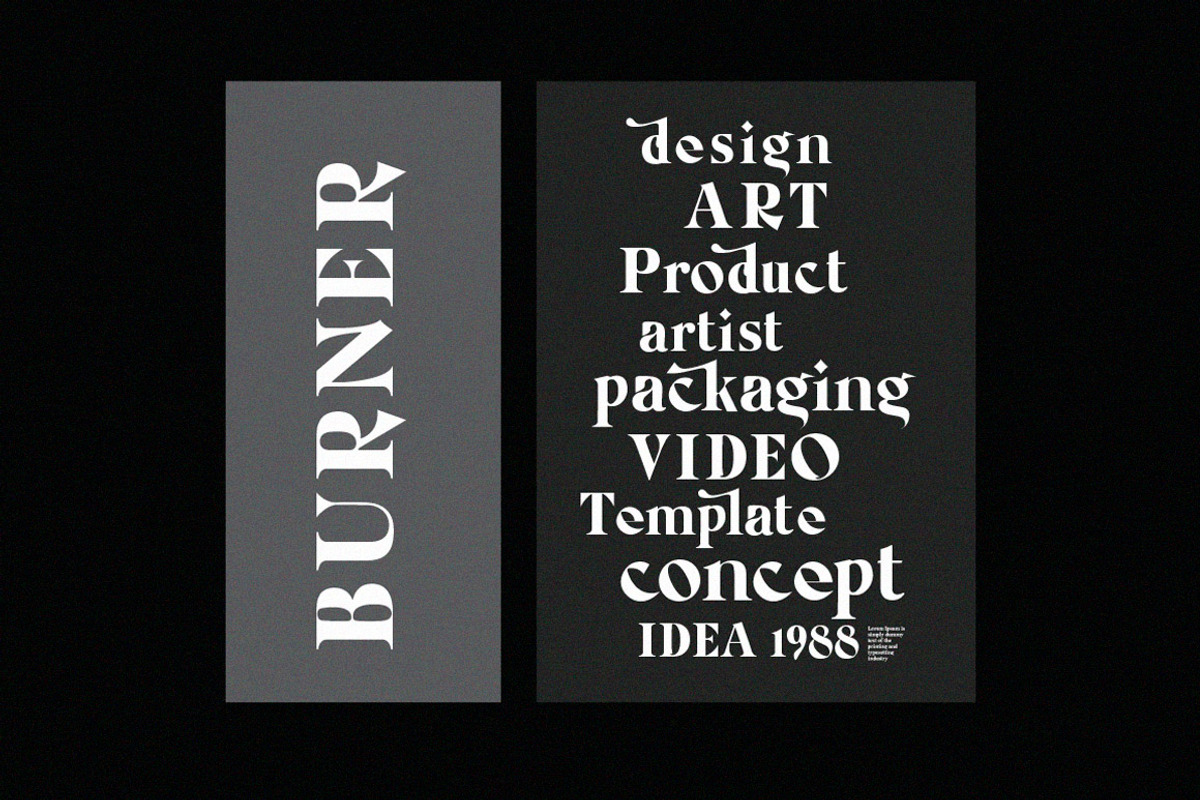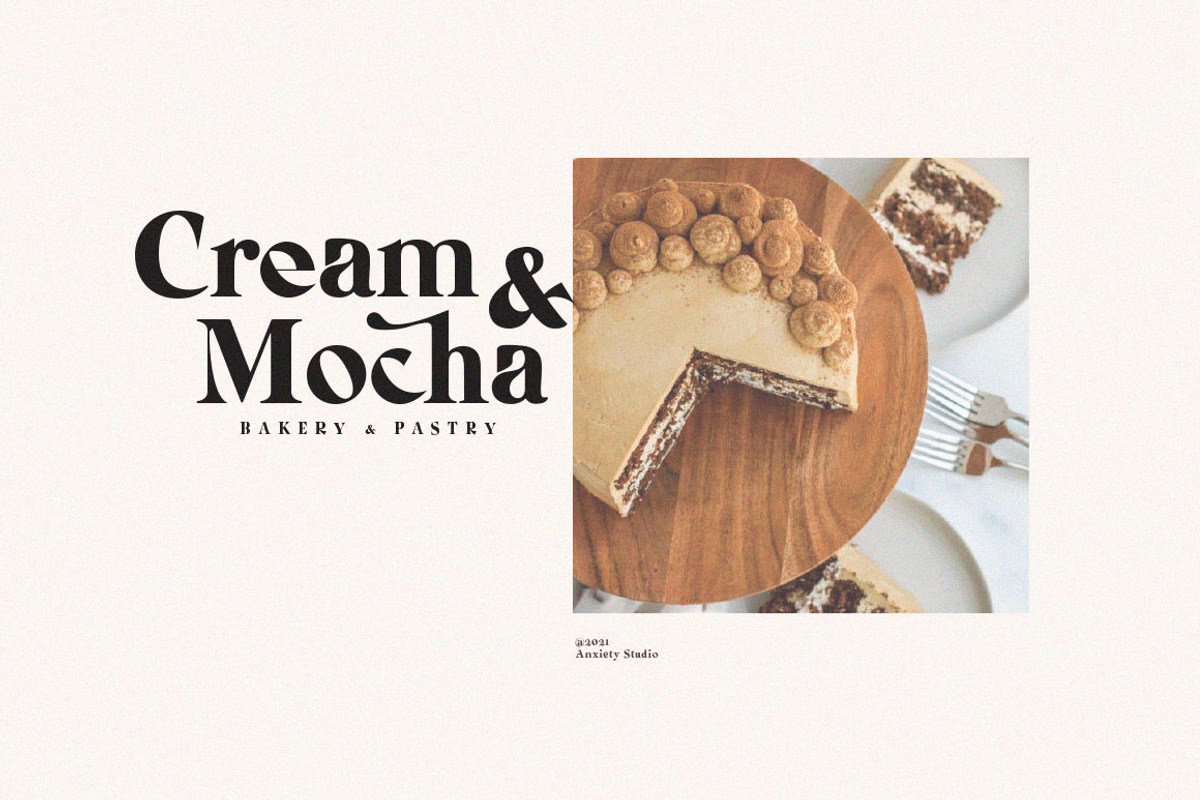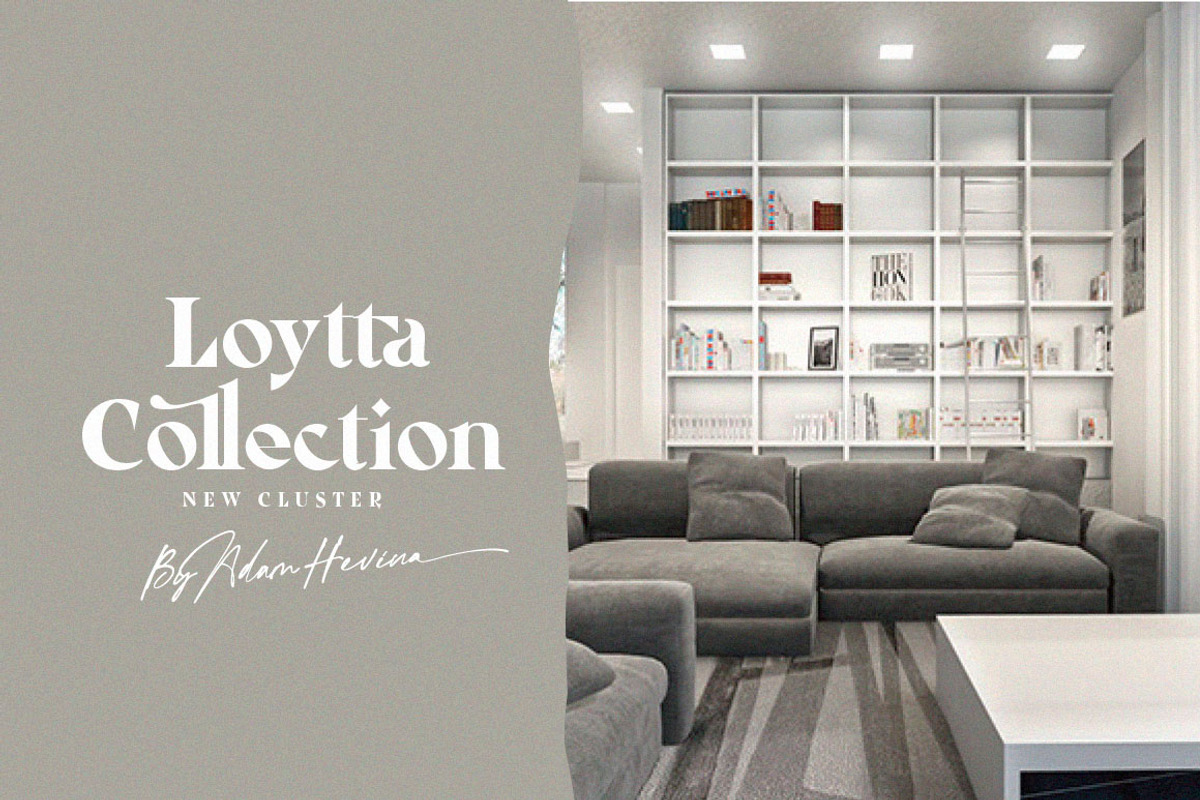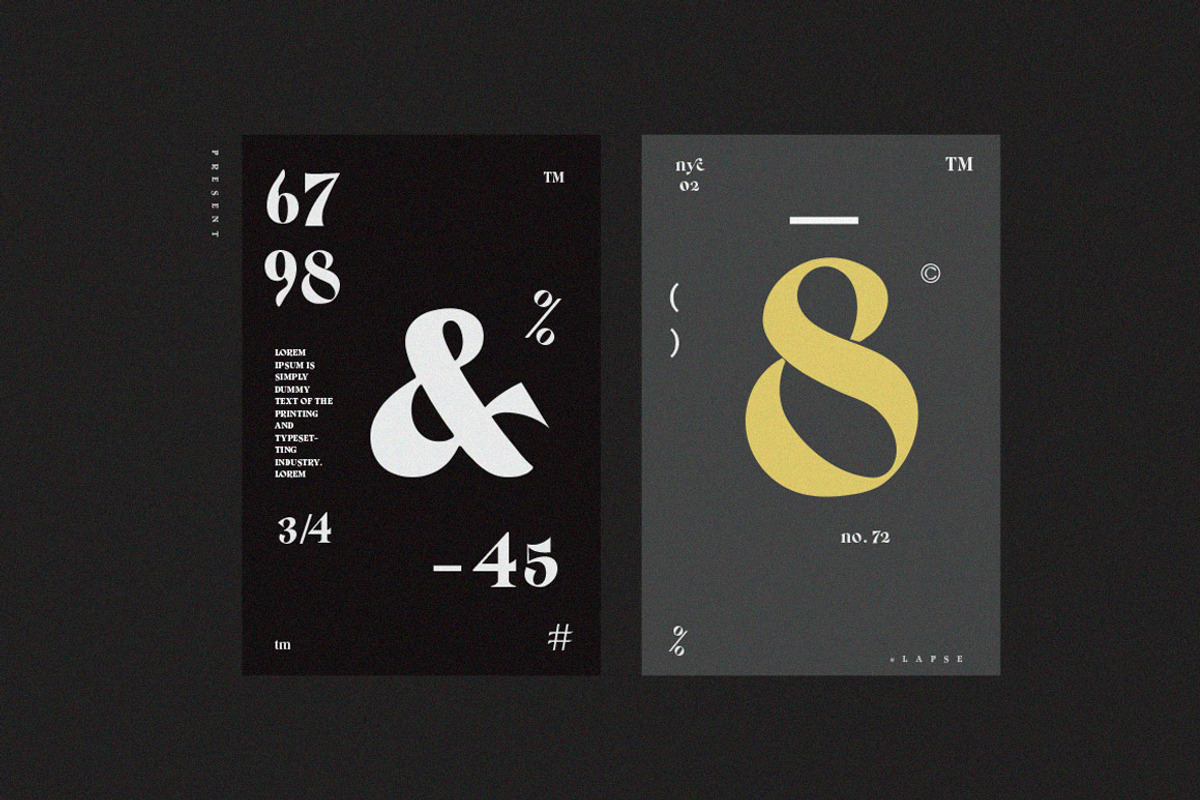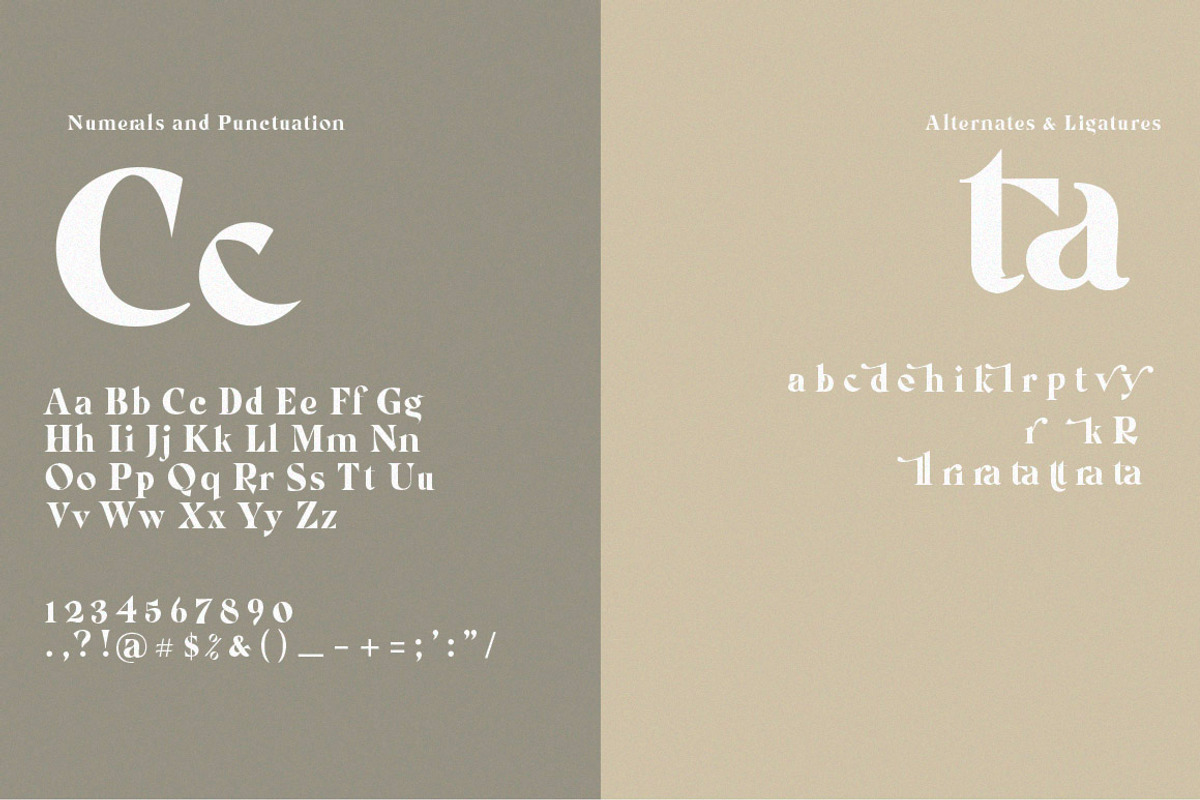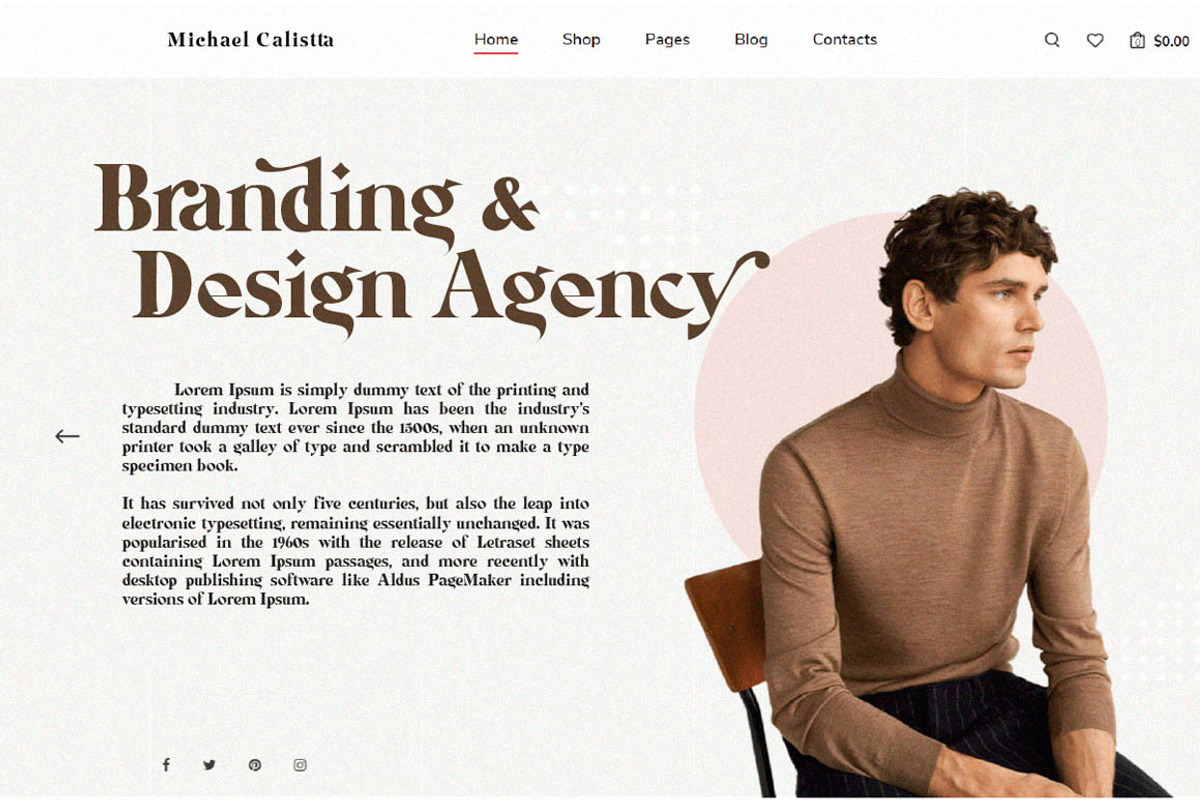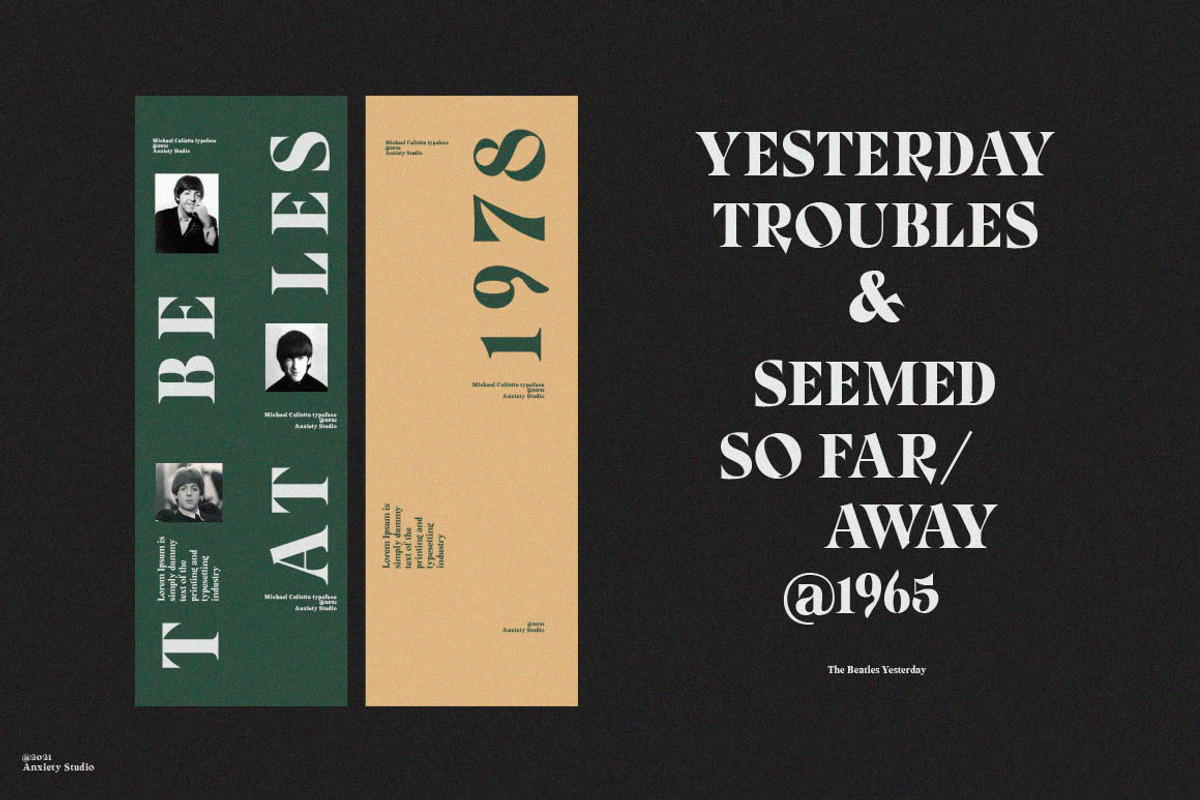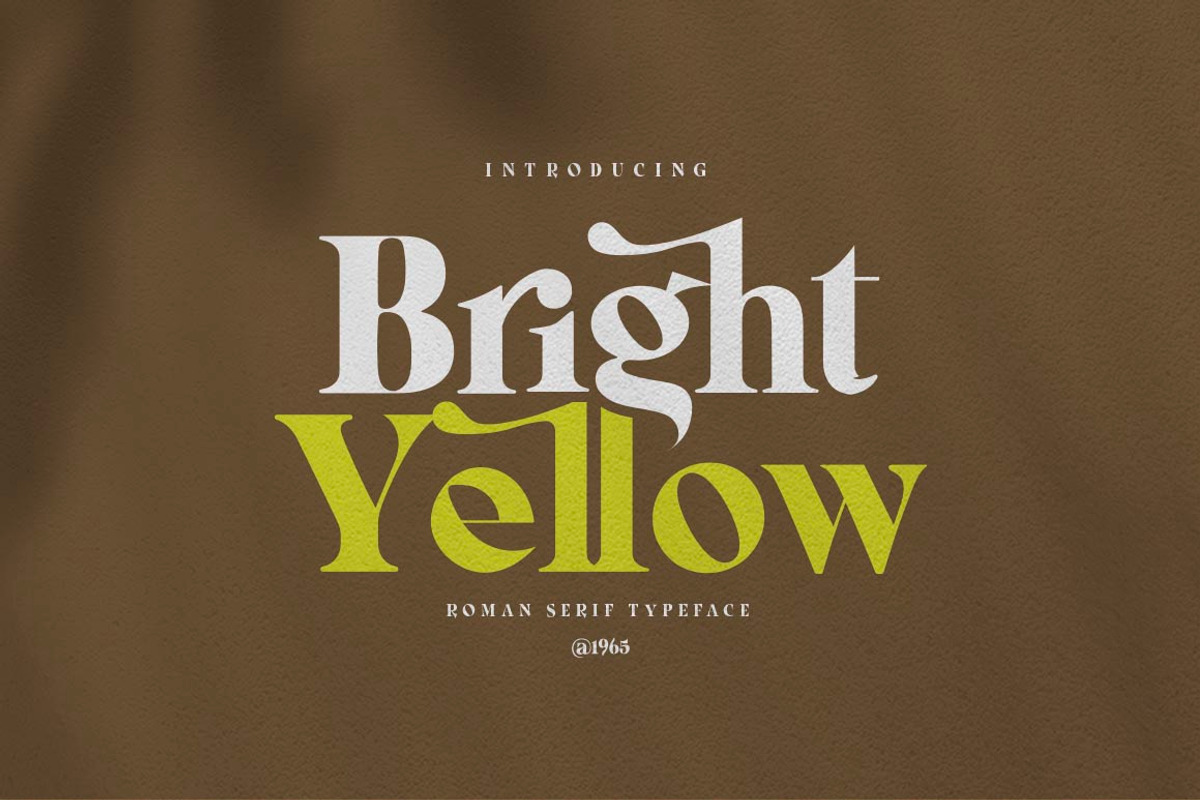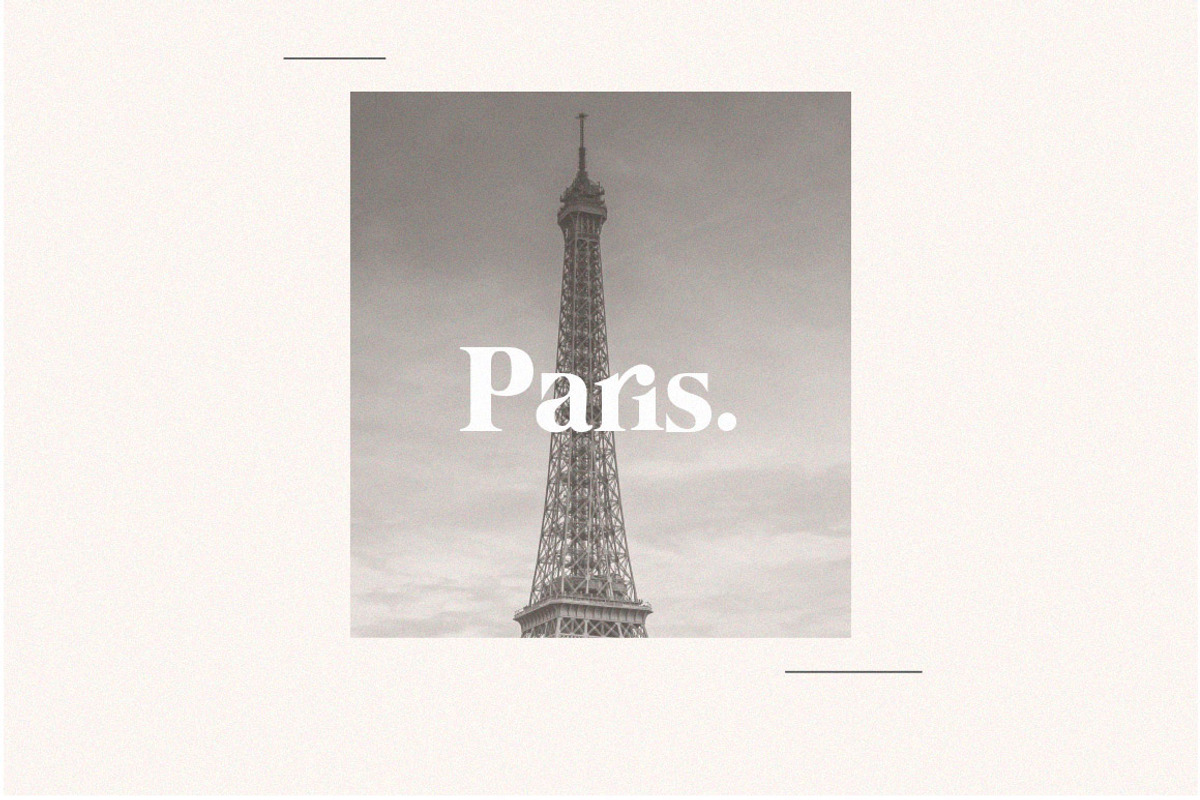
Bright Yellow Serif ( Bonus Fonts)
Bright Yellow is a vintage bold font with classic roman style and decorative serif style. This is a very versatile font that works well for designs, beautifully crafted to be editorial and convincing, making it a great complement to many designs, resulting in stunning logos, Clothing Branding, product packaging, branding projects, Logo design, magazine, wedding invitations, blog posts, Instagram, and more!
A vintage aesthetic in a modern and minimalist way, Bright Yellow includes a complete set of lowercase and uppercase letters with additional alternatives, beautiful ligatures, and binders that make the letters more elegant.
- Lowercase and Uppercase
- Stylistic Alternates & Ligatures